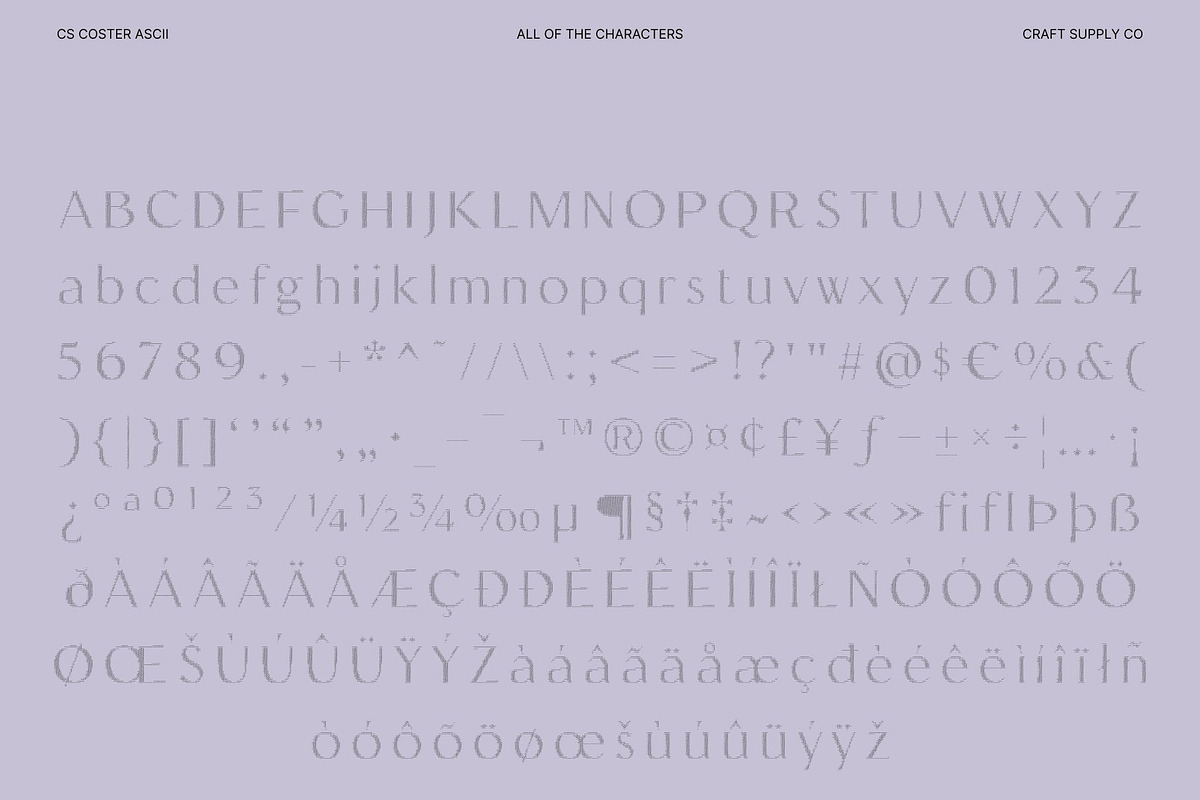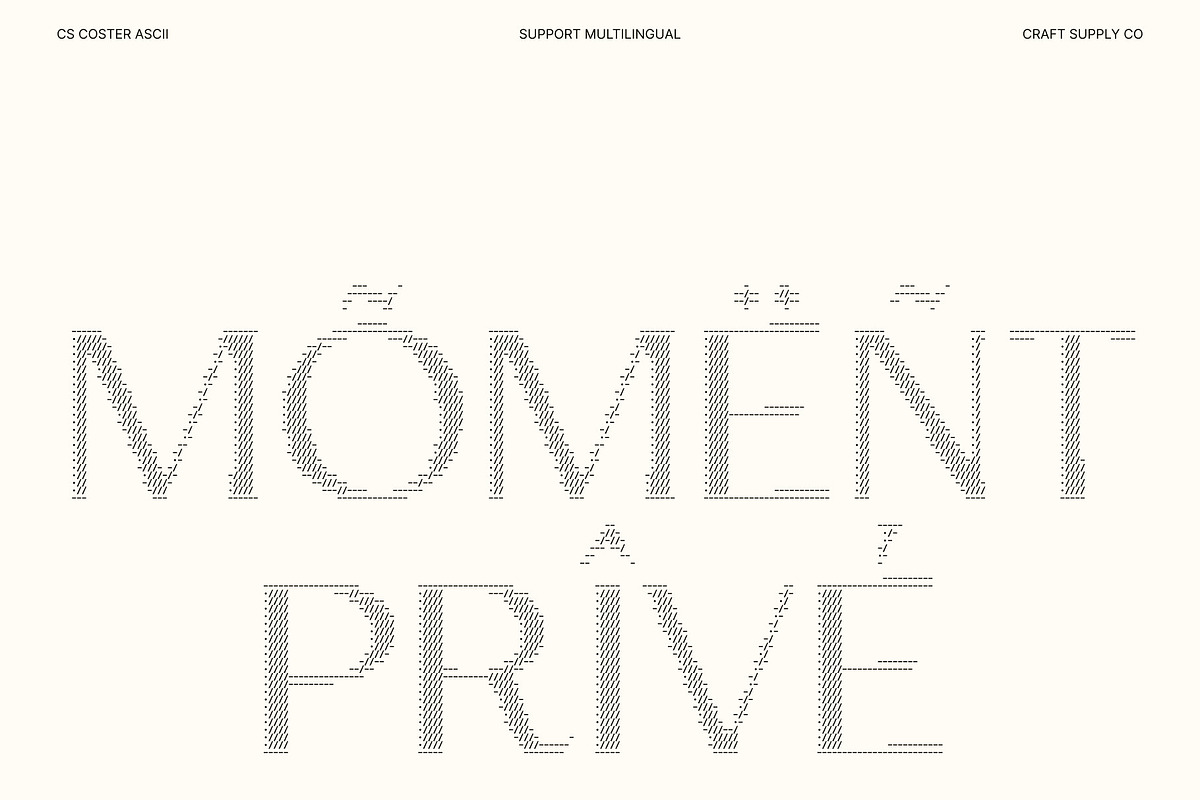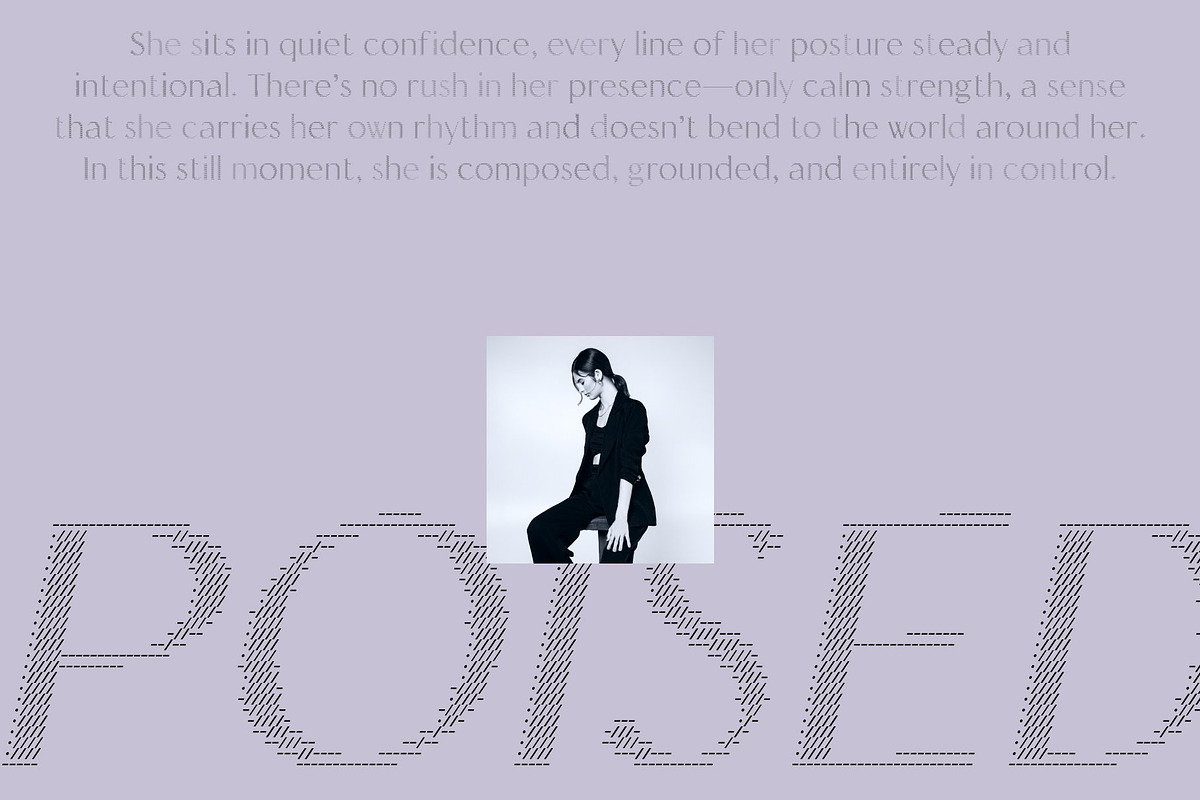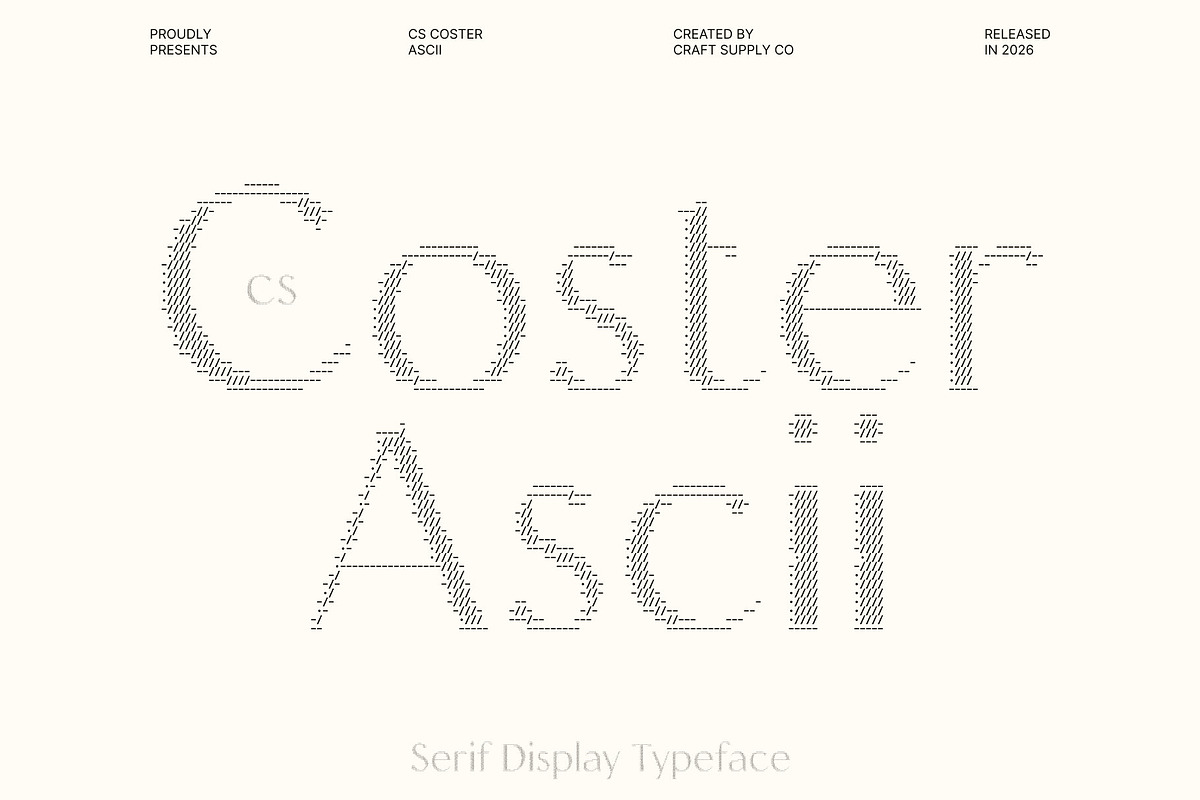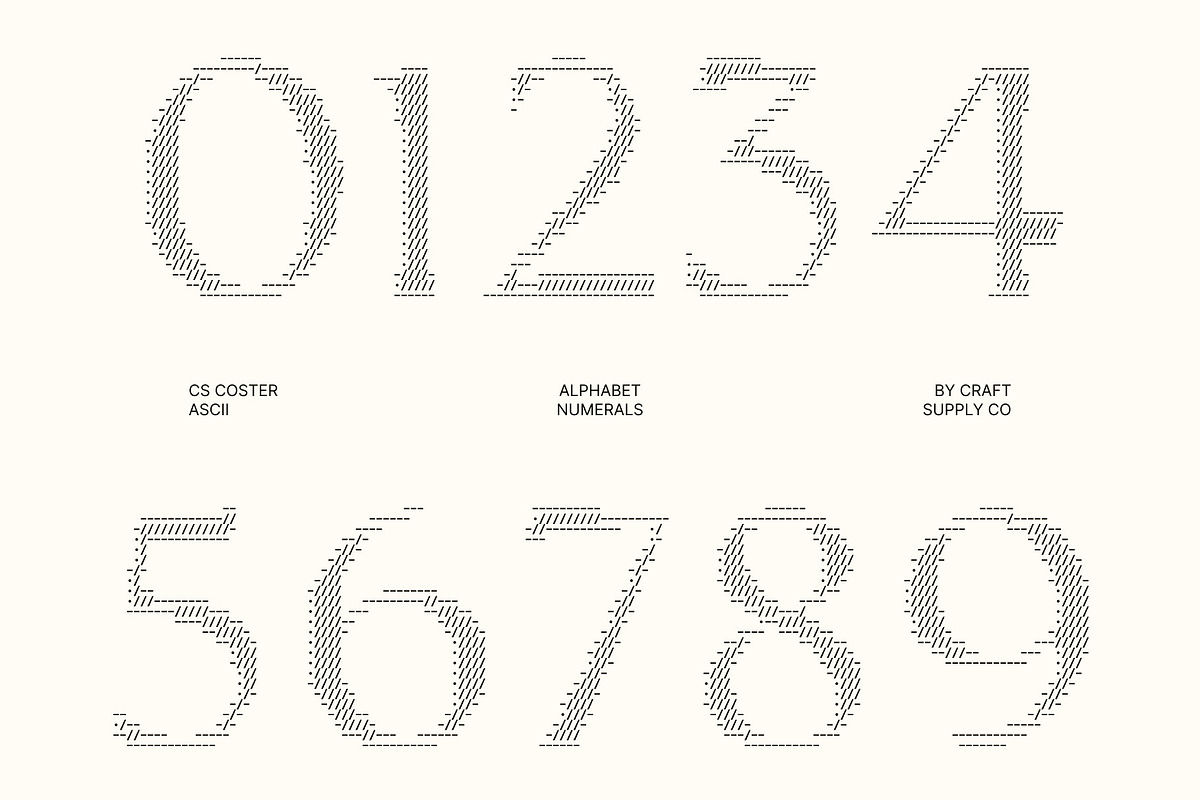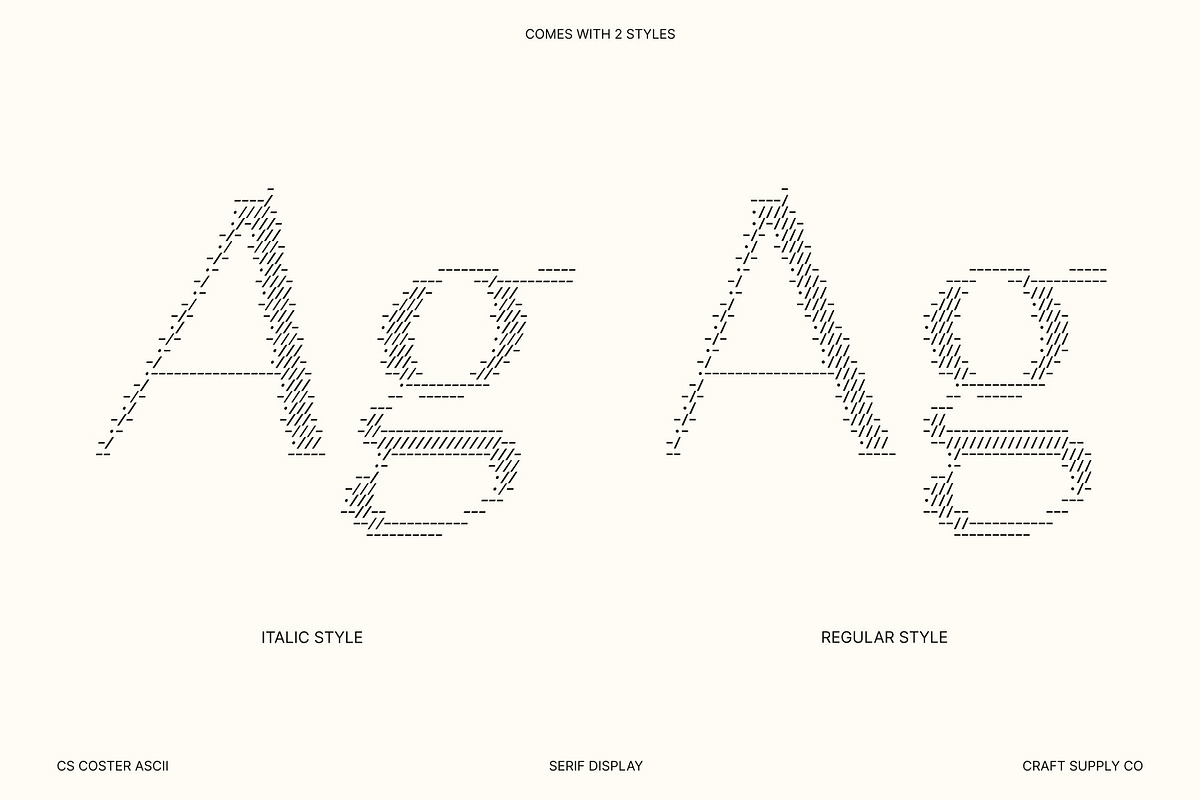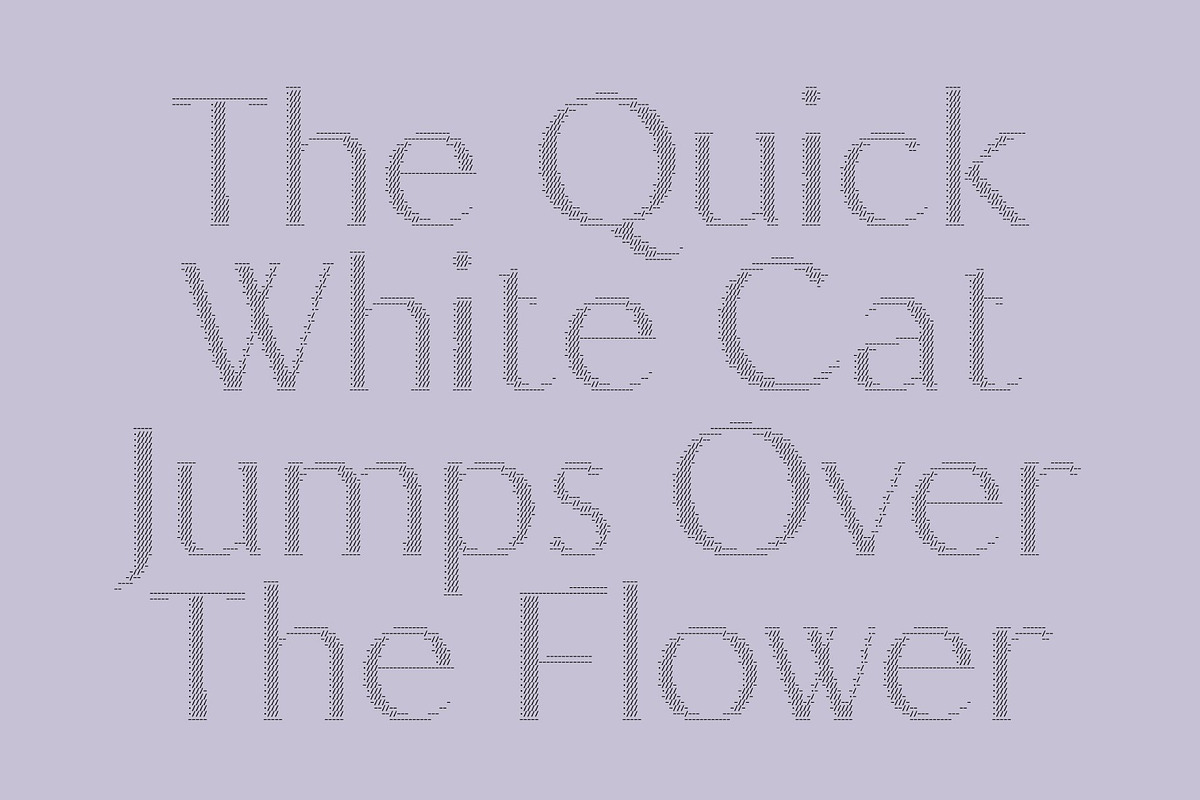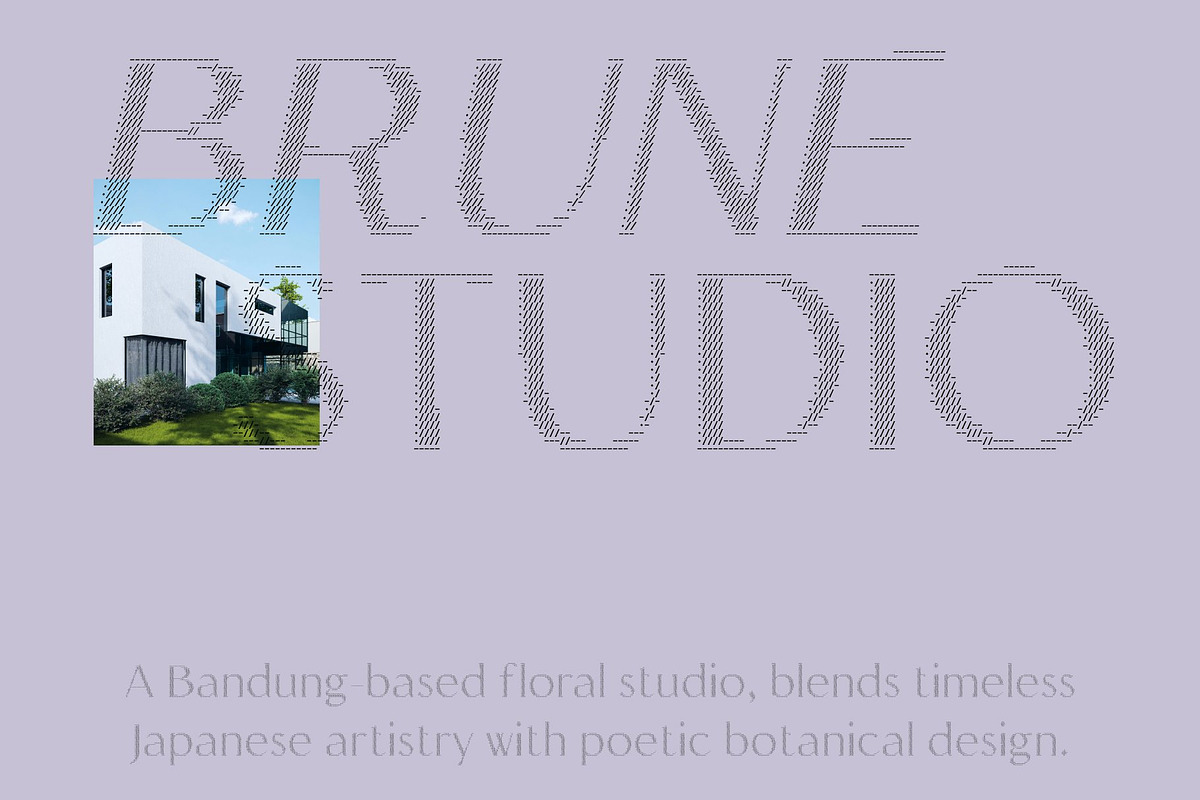
CS Coster Ascii
CS Coster Ascii – Contemporary Sans Serif in Digital Form
Sleek Modern Reimagined in ASCII This transforms the refined personality of a contemporary sans serif into a visually expressive ASCII display font. Each character is built from carefully arranged symbols, turning simple text into decorative digital compositions that feel clean, modern, and sophisticated. This fusion of minimalist design and ASCII artistry creates a distinctive typographic voice that stands out while maintaining clarity and professionalism.
Professional and Polished with a Digital Edge The balanced proportions and clean lines of this font remain at the core of its design, ensuring readability and visual harmony across layouts. The ASCII styling introduces a subtle technological texture that enhances its contemporary feel, making it ideal for modern digital environments.
Ideal for Corporate Branding and Premium Projects This font excels in corporate identities, presentations, websites, marketing materials, and luxury branding. Its sleek structure allows headlines and titles to feel structured and elegant while adding a unique visual character. The ASCII construction helps designs stand out without sacrificing clarity, making every message feel refined and memorable.
Sophisticated Typography for Modern Communication Designed for creators who value elegance and functionality, this font offers a versatile solution for professional and high-end design projects. Whether used in branding, editorial layouts, or digital campaigns, it delivers a modern and trustworthy typographic presence.
CS Coster Ascii Regular
CS Coster Ascii Italic